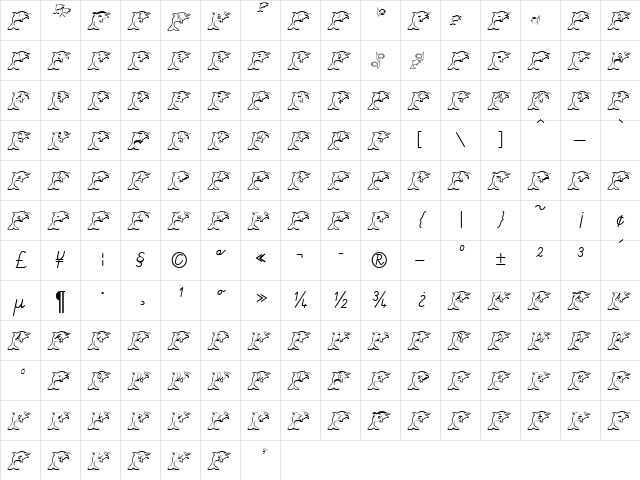
Fishdance Becker Normal Free Font
Fishdance Becker Normal
Design Context for Fishdance Becker
Fishdance Becker is a composed and adaptable typeface that performs quietly and consistently across a wide range of design contexts.